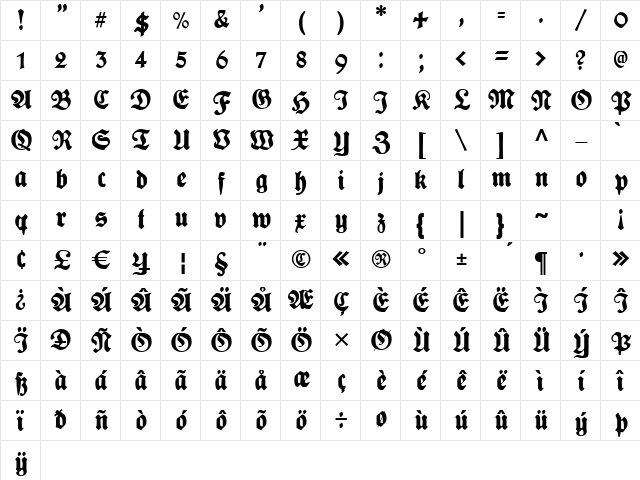
Plakat-FrakturUNZ1L Italic
Foundry: Typographer Mediengestaltung,
Design Context for Plakat-FrakturUNZ1L
Plakat-FrakturUNZ1L draws on the rich tradition of blackletter calligraphy, with dense, angular strokes that evoke medieval manuscripts and old-world craftsmanship. The slanted form adds forward momentum and visual energy.
Font Pairing: Pair with a clean neutral sans-serif for body copy to let Plakat-FrakturUNZ1L's character lead without overwhelming the composition.
Pro Tip: Reserve Plakat-FrakturUNZ1L for display and logo use - pair it with a clean sans-serif for body copy to prevent the composition from feeling oppressive.